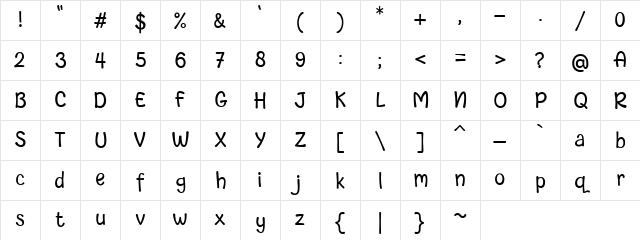
Cute Aurora Regular Free Font
Cute Aurora Regular
Design Context for Cute Aurora
Cute Aurora is a composed and adaptable typeface that performs quietly and consistently across a wide range of design contexts.